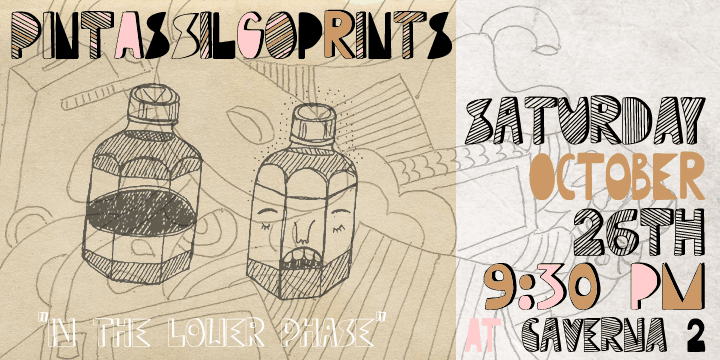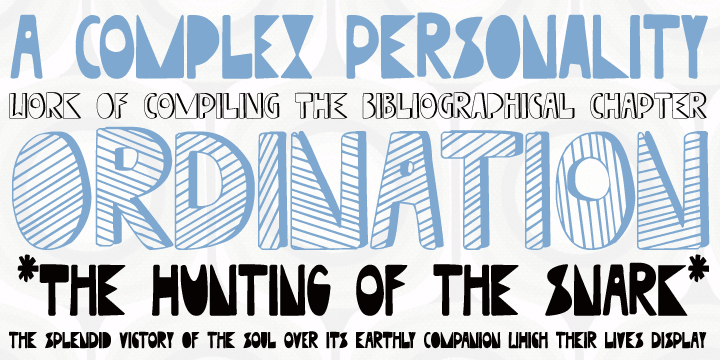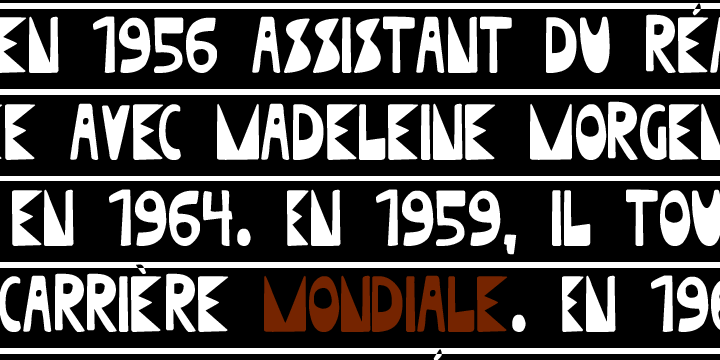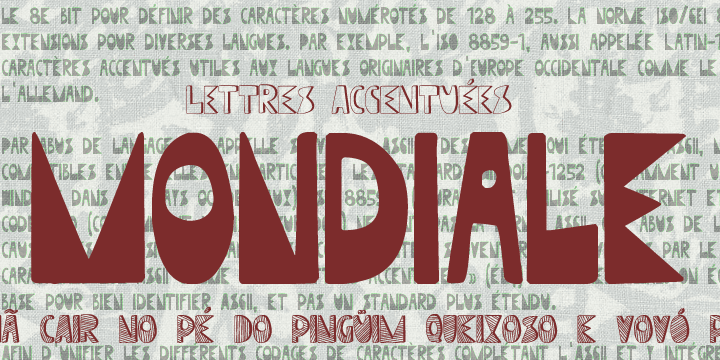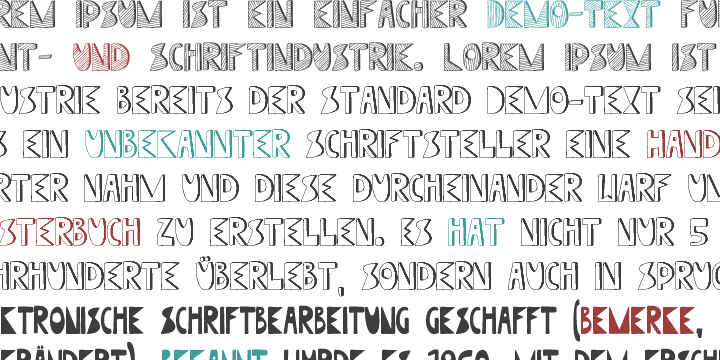
About the Mondiale Font
About Mondiale Font Family Mondiale is a three-flavor unicase family with a tasty hand drawn feel.It contains uppercase letters and uses the lowercase as variations, providing flexibility for your designs. Designers: Erica Jung, Ricardo MarcinPublisher: PintassilgoPrintsFoundry: